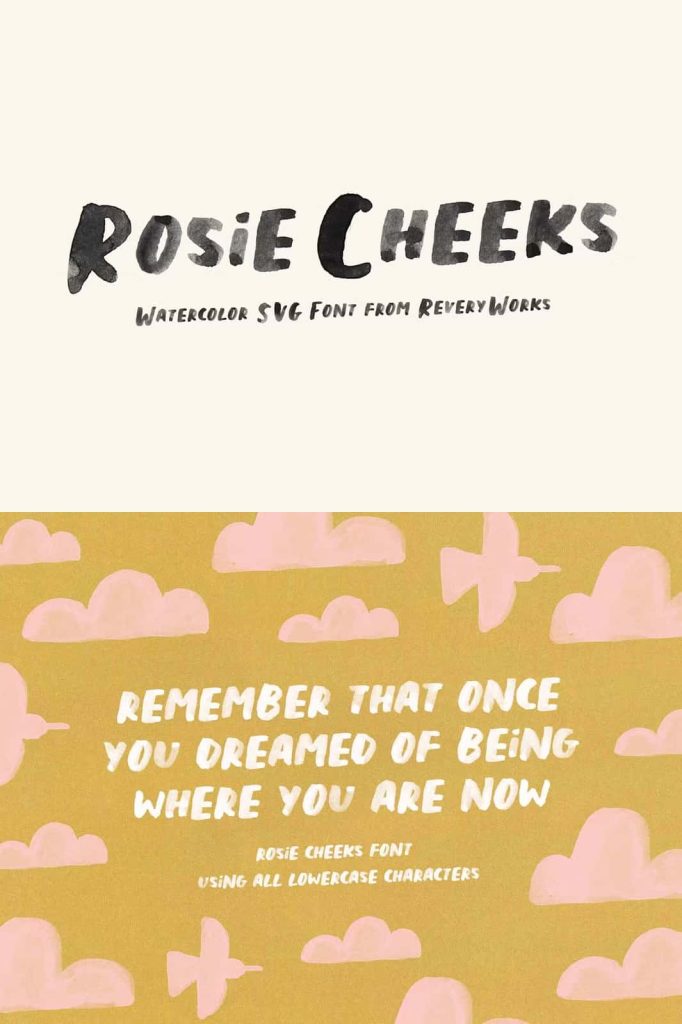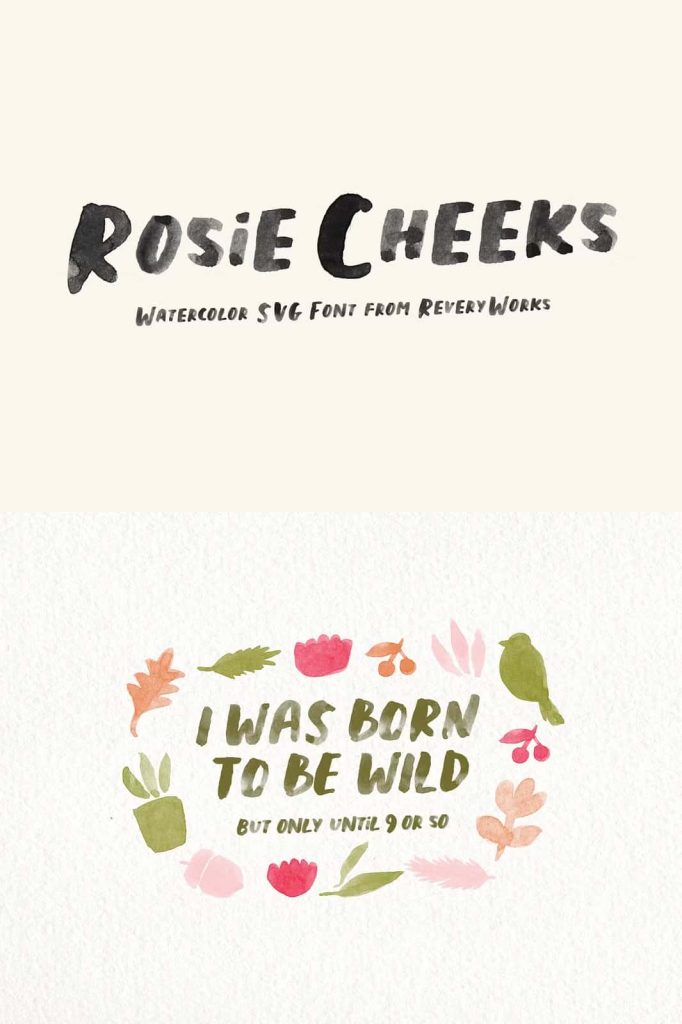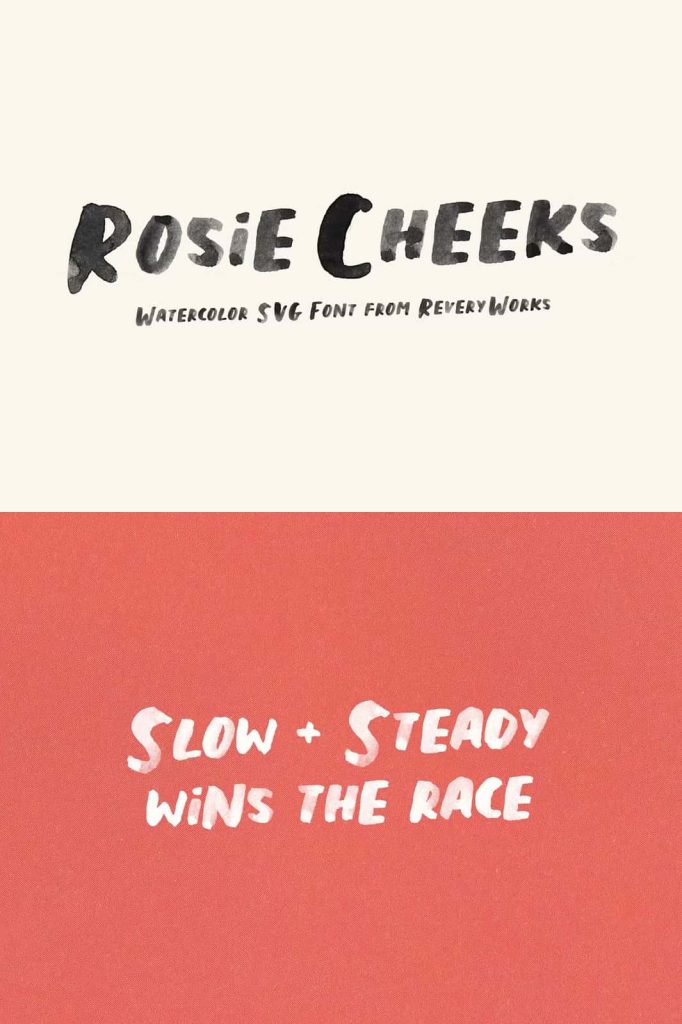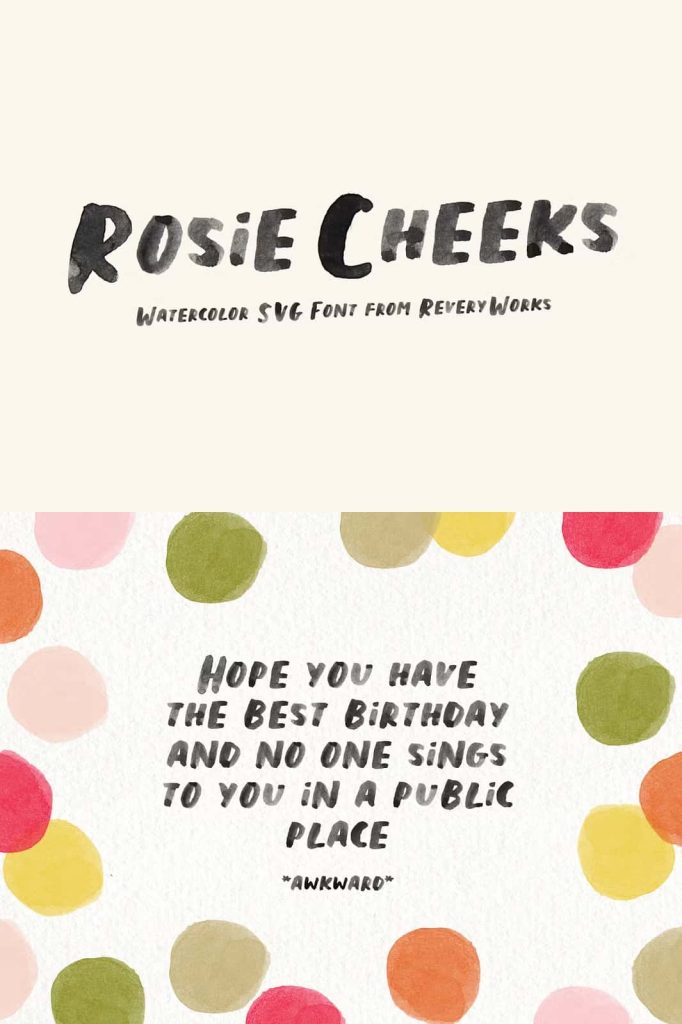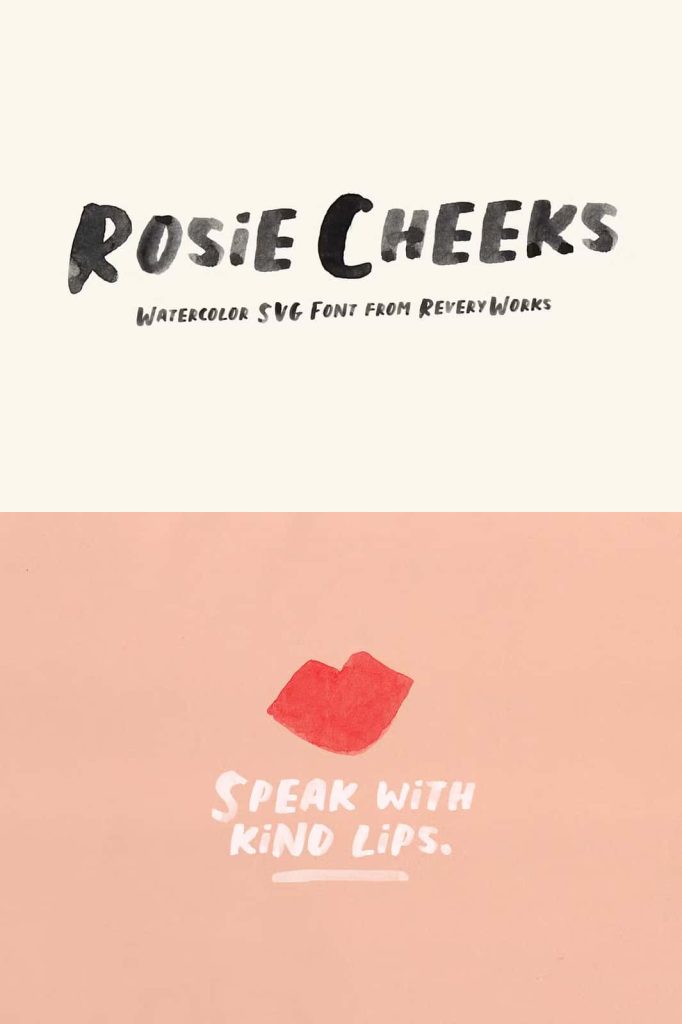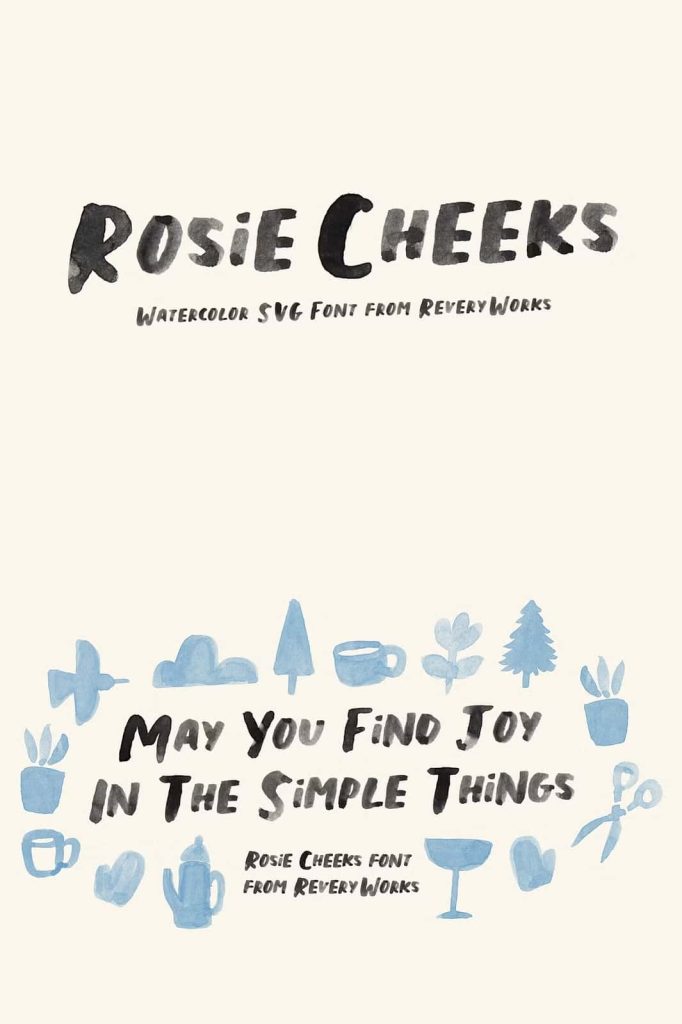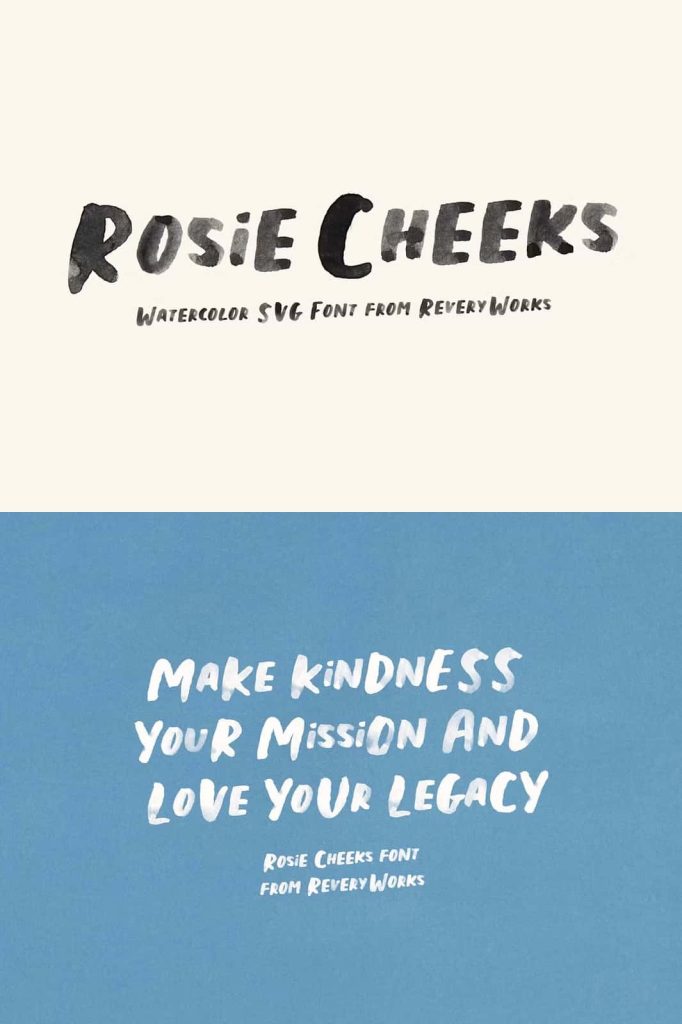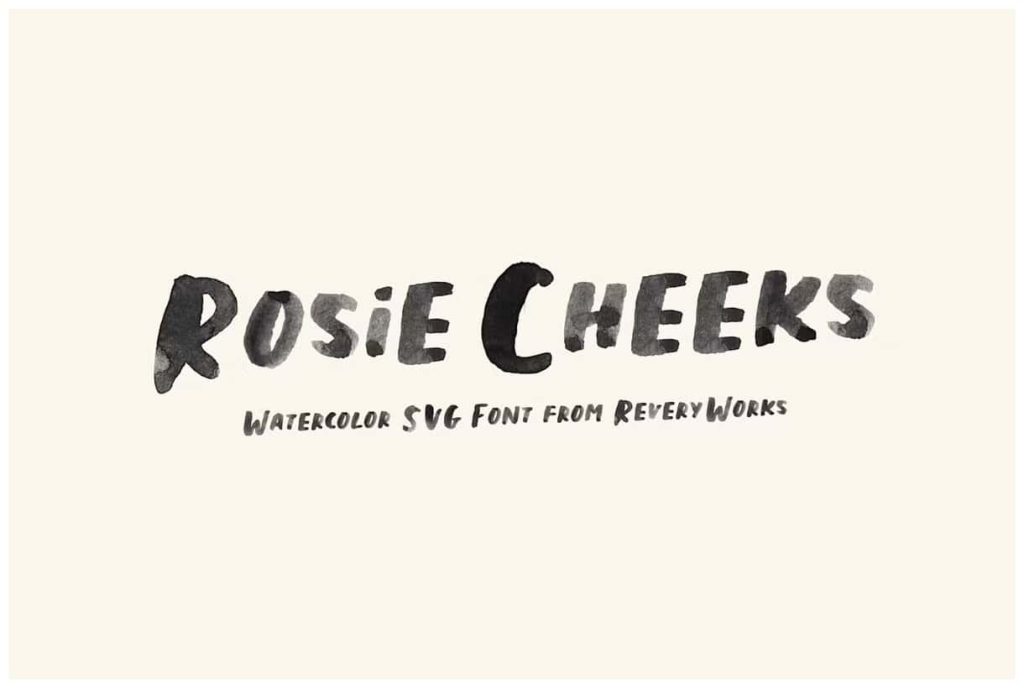
Rosie Cheeks Font – SVG & RegularleastedApril 3, 2025Fonts Inspired by natural watercolor lettering. This font is minimal yet very versatile. Download